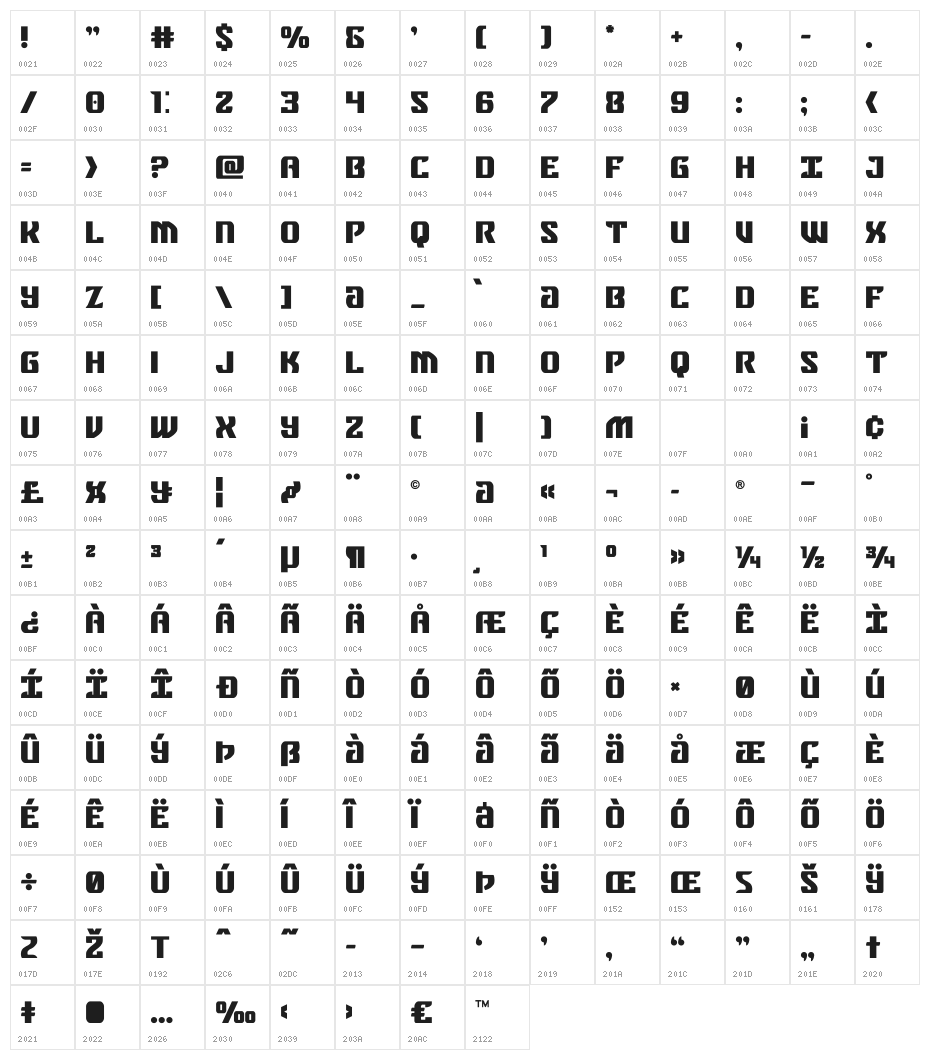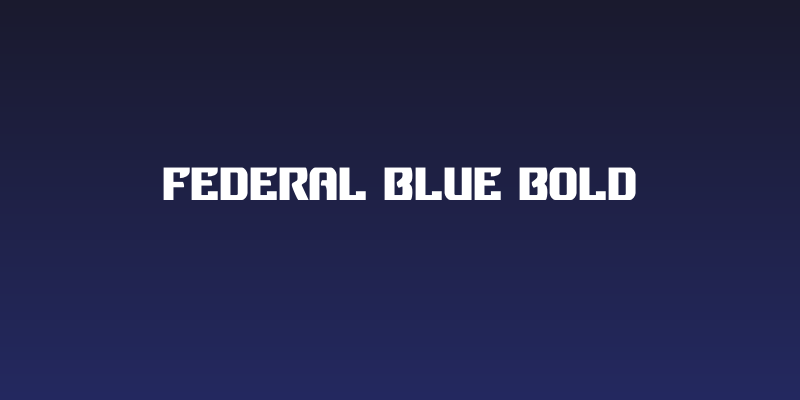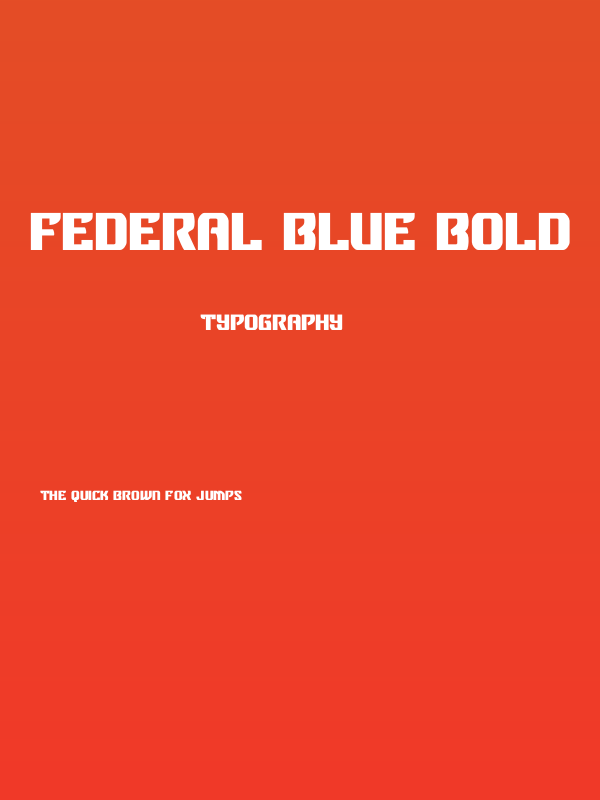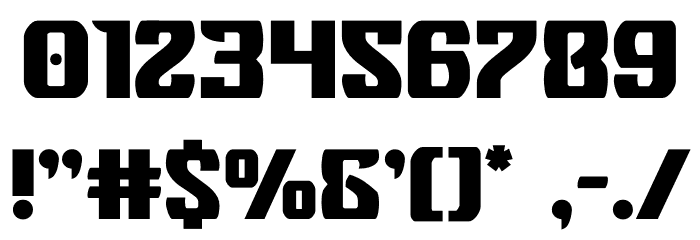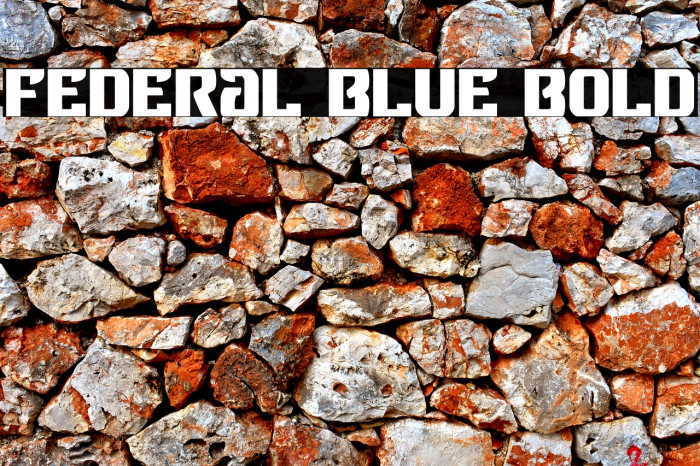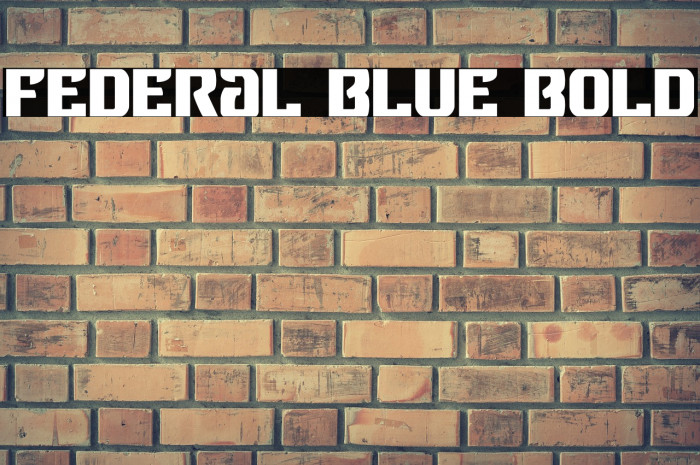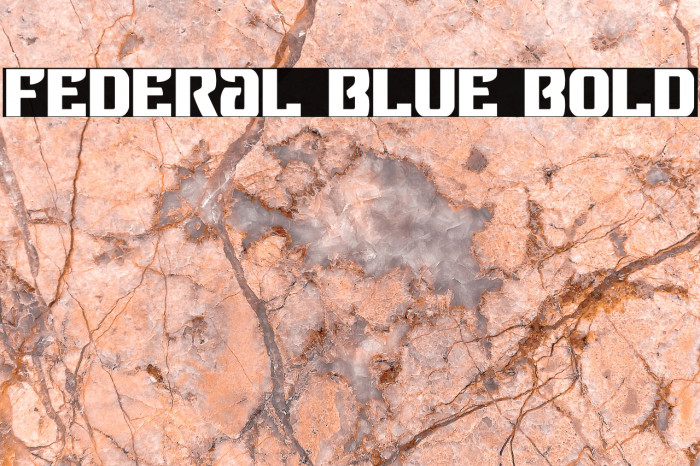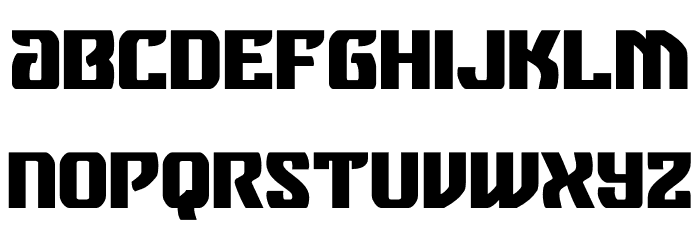
Federal Blue Bold Font
Federal Blue Bold Description
This bold and striking font features a robust and angular design, characterized by its thick strokes and geometric shapes. The uppercase letters are particularly prominent, with a strong presence that commands attention. The font's design is reminiscent of industrial or military aesthetics, with a modern twist. Its boldness is consistent across all characters, including numbers and special symbols, making it ideal for impactful and eye-catching designs. The font's unique style is further enhanced by its slightly condensed width, which adds to its compact and powerful appearance.
| Proposed Projects | Ideal for posters, logos, branding, and any project requiring a bold, impactful typeface. |